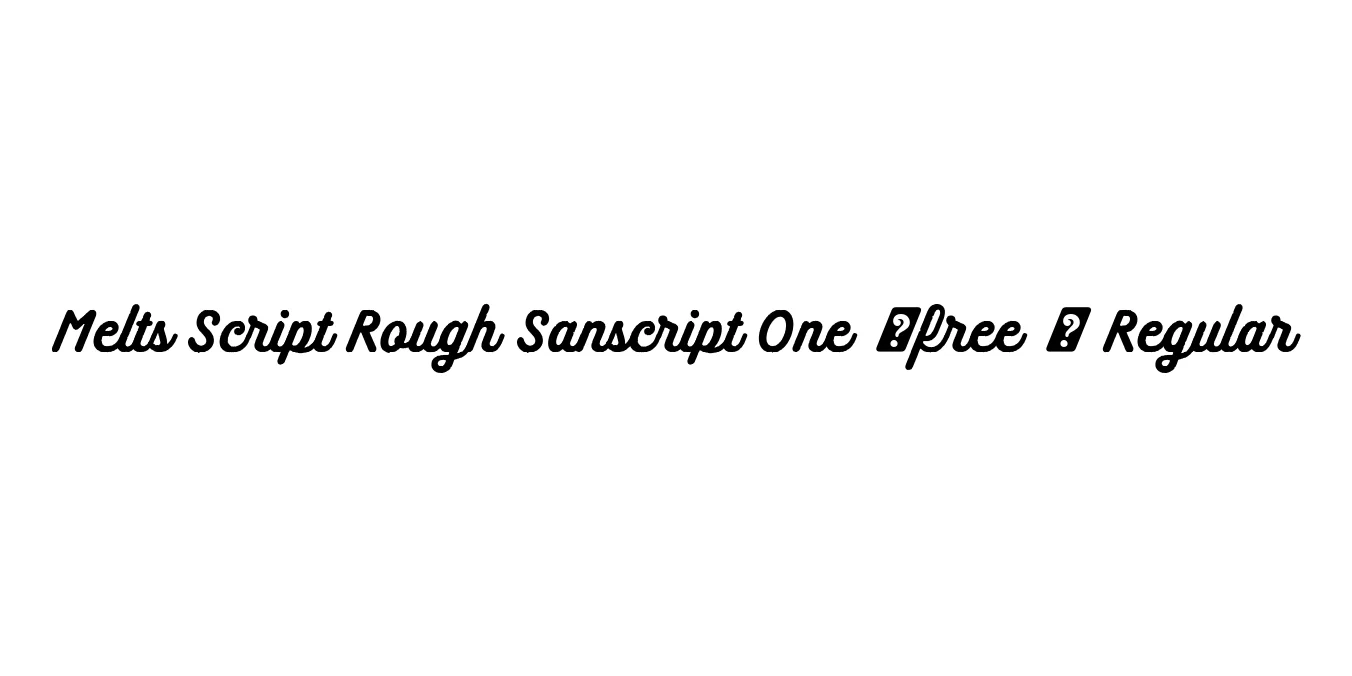
Melts Script Rough Sanscript One (free ) Regular
Designed by Ryan Martinson
Melts Script Rough Sanscript One is a distinctive, textured typeface created by Ryan Martinson of Yellow Design Studio. Characterized by its rounded, fluid forms and distressed edges, this font mimics the appearance of traditional ink stamping or letterpress printing. It is designed to evoke a sense of warmth and nostalgia, making it a staple for designers looking to achieve an authentic vintage aesthetic without sacrificing legibility.
The Rough variation of this script family features organic imperfections and a gritty texture that adds depth to digital designs. Its thick, bold strokes and hand-drawn quality make it particularly effective for display purposes where a tactile, human touch is required. Whether used for a rustic logo or a nostalgic poster, Melts Script provides a classic, weathered look that feels both timeless and approachable.
Melts Script Rough Sanscript One (free ) Regular Best Uses
Perfect for vintage-inspired logos and artisanal brand identities.
Ideal for craft beer labels, coffee packaging, and organic food products.
Great for t-shirt graphics and rustic merchandise designs.
Adds an organic, hand-crafted feel to quotes and promotional graphics.